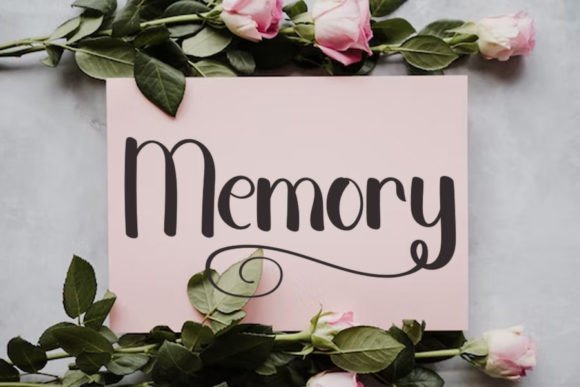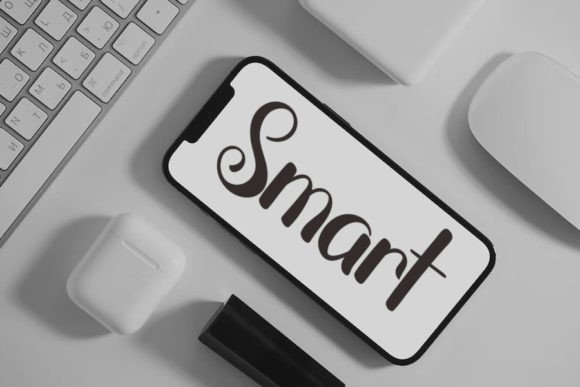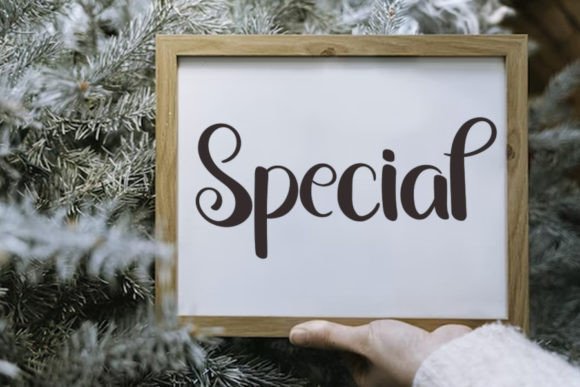
Introducing Dailly Font: The Sweet and Delicate Handwritten Font for Romantic Designs
Are you a designer or crafter looking for a font that can add a touch of romance and personality to your designs? Look no further than Dailly Font, a sweet and delicate handwritten font that’s perfect for creating beautiful wedding invitations, cards, and other designs that require a personal touch.
What Makes Dailly Font Special?
Dailly Font is a unique and charming font that’s been carefully crafted to bring a sense of joy and elegance to your designs. Its dainty and delicate strokes make it ideal for creating romantic and whimsical designs that will capture the hearts of your audience. Whether you’re designing wedding invitations, greeting cards, or other paper crafts, Dailly Font is the perfect choice.
Characteristics of Dailly Font
So, what makes Dailly Font so special? Here are some of its key characteristics:
- Sweet and delicate strokes: Dailly Font features gentle and flowing strokes that give it a charming and feminine touch.
- Handwritten with love: This font is carefully crafted to mimic the look of handwritten text, making it perfect for designs that require a personal touch.
- Dainty and joyful: Dailly Font is designed to bring a sense of joy and playfulness to your designs, making it ideal for wedding invitations, birthday cards, and other celebrations.
- Romantic and whimsical: With its elegant and cursive strokes, Dailly Font is perfect for creating romantic and whimsical designs that will capture the hearts of your audience.
Use Cases for Dailly Font
Dailly Font is a versatile font that can be used for a variety of design projects. Here are some of the most popular use cases:
- Wedding invitations: Dailly Font is perfect for creating beautiful and elegant wedding invitations that will set the tone for the big day.
- Greeting cards: Whether you’re designing birthday cards, anniversary cards, or get-well cards, Dailly Font is a great choice.
- Paper crafts: Dailly Font is ideal for paper crafts, such as scrapbooking, journaling, and card making.
- Social media graphics: Use Dailly Font to create beautiful and engaging social media graphics, such as quotes, posters, and flyers.
Why Designers and Crafters Love Dailly Font
So, why do designers and crafters love Dailly Font? Here are some reasons:
- Easy to read: Dailly Font is clear and easy to read, making it perfect for designs that require a lot of text.
- Versatile: Dailly Font can be used for a variety of design projects, from wedding invitations to social media graphics.
- Unique and charming: Dailly Font has a unique and charming personality that will set your designs apart from the rest.
- High-quality: Dailly Font is a high-quality font that’s been carefully crafted to ensure that it’s perfect for professional designs.
In conclusion, Dailly Font is a sweet and delicate handwritten font that’s perfect for designers and crafters who want to add a touch of romance and personality to their designs. With its dainty and joyful strokes, Dailly Font is ideal for creating beautiful wedding invitations, cards, and other designs that require a personal touch. Whether you’re a professional designer or a crafter, Dailly Font is a great choice for any design project.